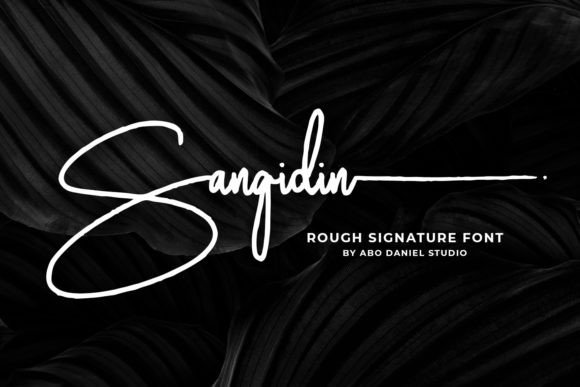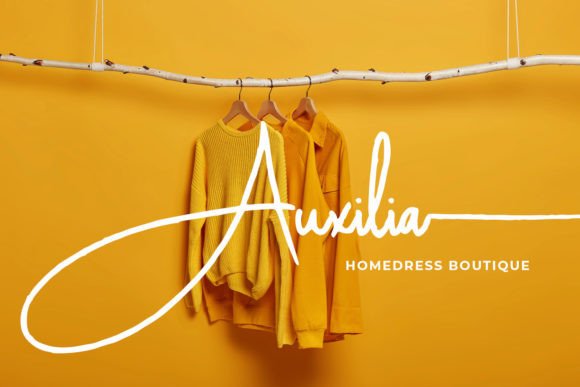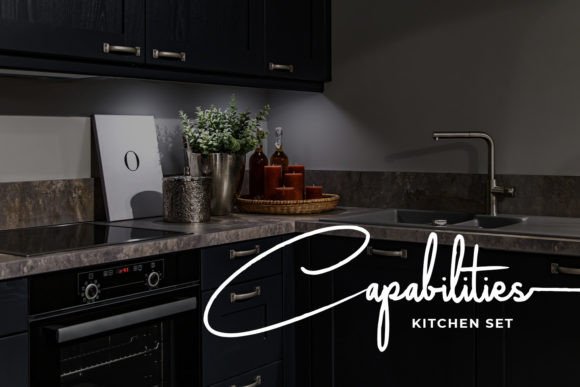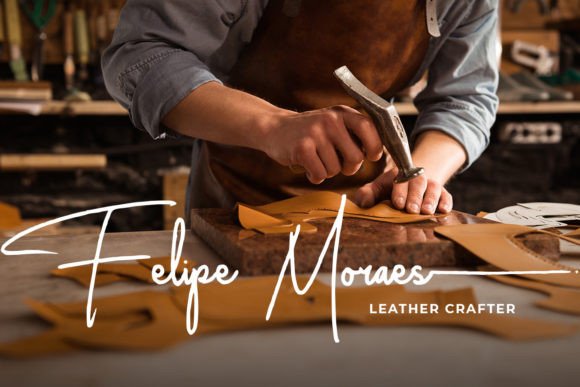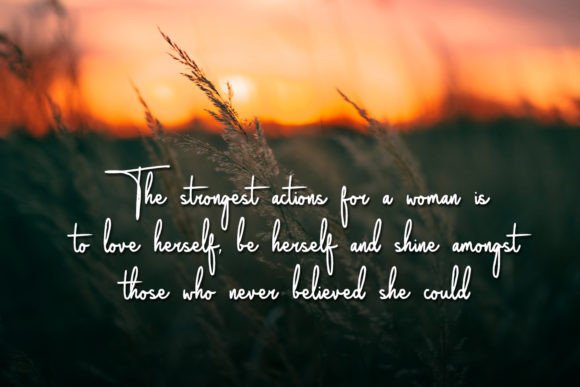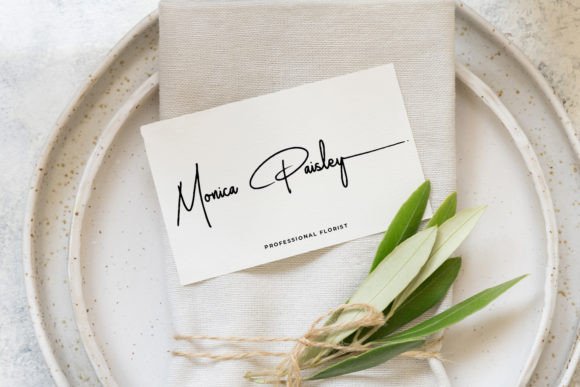
Sangidin Font
About Sangidin Font
Sangidin– rough signature font –
Sangidin is a natural signature font with a rough texture.It is great for branding, logos, t-shirt designs, tote bag designs, cards, banners, social media, and more. This font is PUA encoded, which means you can access all of the glyphs and swashes with ease!